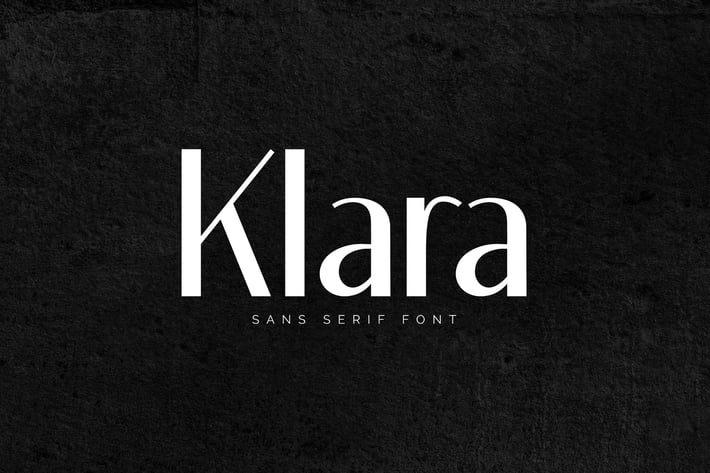
KLARA - Elegant Sans Serif Font
Klara - Special Signature Script.
Klara is a timeless sans serif with an elegant font style. With sleek and neat lines, and with just a hint of contrast, Klara works beautifully for magazine titles, branding, advertisements, quotes and web titles in a minimalist style as in the sample preview above.
- Uppercase Characters
- Lowercase Characters
- Punctuation, Numerical, Ligatures
- Multilingual support for various languages including: French, German, Spanish, Portuguese, Italian, Dutch, Finnish, Swedish, and more.